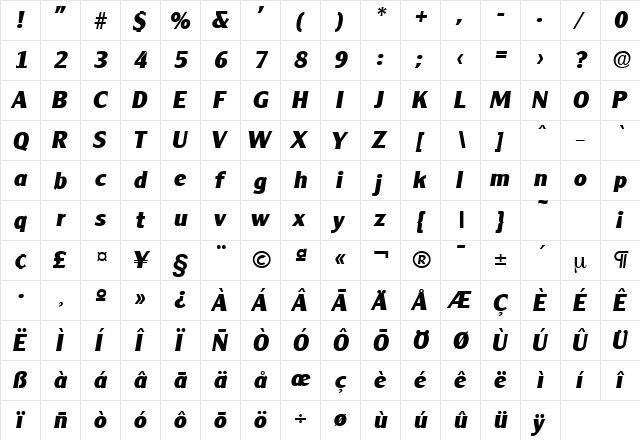
Cleargothic-Serial-ExtraBold RegularItalic Font Preview
Design Context for Cleargothic-Serial-ExtraBold Typeface
Cleargothic-Serial-ExtraBold takes a clean, functional approach — its unadorned letterforms prioritise legibility and work reliably across screen and print environments. Its italic angle brings a sense of urgency and motion to the letterforms. Its bold stroke weight gives it real presence on the page.
Well-suited to navigation labels, product packaging, and anywhere legibility at scale is essential.
Font Pairing: Use Cleargothic-Serial-ExtraBold for headlines alongside a lighter-weight sans or serif for body copy to establish clear visual hierarchy.
Pro Tip: Use Cleargothic-Serial-ExtraBold for UI labels, navigation, and short-form body copy where clean legibility is the priority.